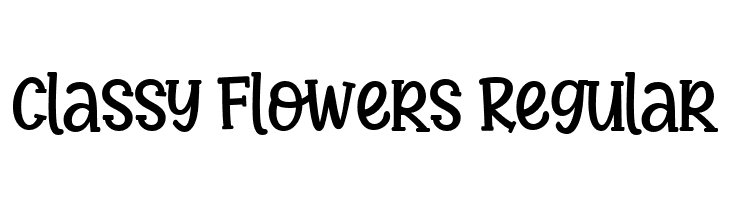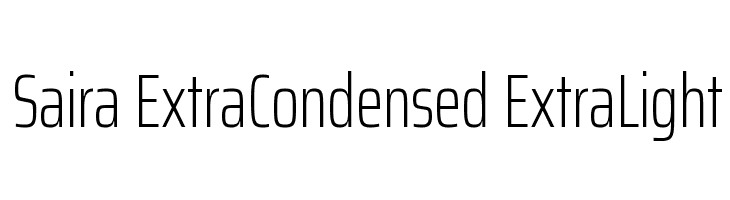
A bold, angular font with a geometric and impactful design.
A bold, retro-style font with thick, exaggerated curves.
A bold, textured font with characters made of small text, evoking a newspaper print style.
An ornate mosaic-style font with detailed uppercase letters in square frames.
A bold, jagged font with a horror-themed, hand-drawn style.
A playful, rounded font with a smooth, modern design.
A clean, modern sans-serif font with light weight and balanced proportions.
A bold, geometric font with a striped, futuristic design.
A playful, casual handwritten font with uneven strokes and a friendly appearance.
A whimsical and artistic handwritten font with fluid, dynamic strokes.
A bold, playful font with a 3D effect and dotted interior pattern.
A bold, modern font with elongated, narrow characters and a sleek, professional aesthetic.
A bold, extended, and oblique font with a modern and dynamic style.
A bold, italicized font with a digital, segmented LCD display style.
Hand-drawn Christmas tree illustrations replace standard characters for a festive, decorative look.
A bold, futuristic, and condensed font with a geometric style.
A bold, italicized font with high contrast and decorative, angular features.
A playful, bold font with rounded edges and a slightly condensed style.
A modern, light sans-serif font with clean lines and balanced proportions.
A futuristic, bold italic font with angular lines and a sci-fi aesthetic.
A bold, playful script font with interconnected, flowing strokes.
Playful handwritten script with bohemian style.
A bold, rounded, and playful font with a bubbly appearance.
Pictographic, cave art-inspired decorative font with hand-drawn, irregular shapes.
A hand-drawn, woodcut-style decorative font with circular outlines.
A bold, futuristic font with geometric, angular characters and a dynamic slant.
A bold, decorative font with diagonal stripes across each character.
A cursive, handwritten font with elegant, flowing italic characters.
设计师偏爱 Konfuciuz Fat, Flea Market Plain, News papers st, Derradeira and Mosaic_Initials,因为其造型干净、适用范围广—— 从品牌识别到落地页、海报都能胜任。